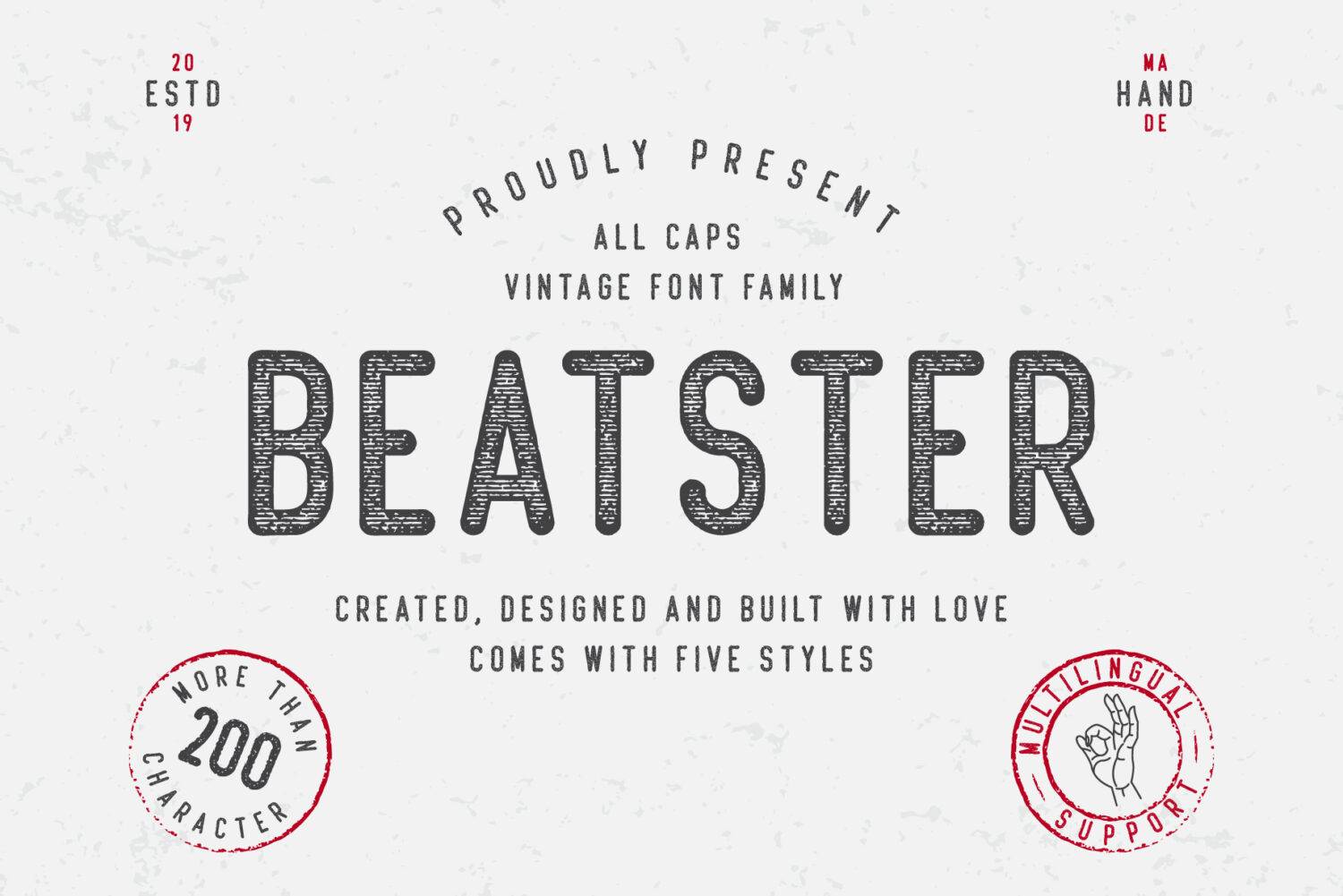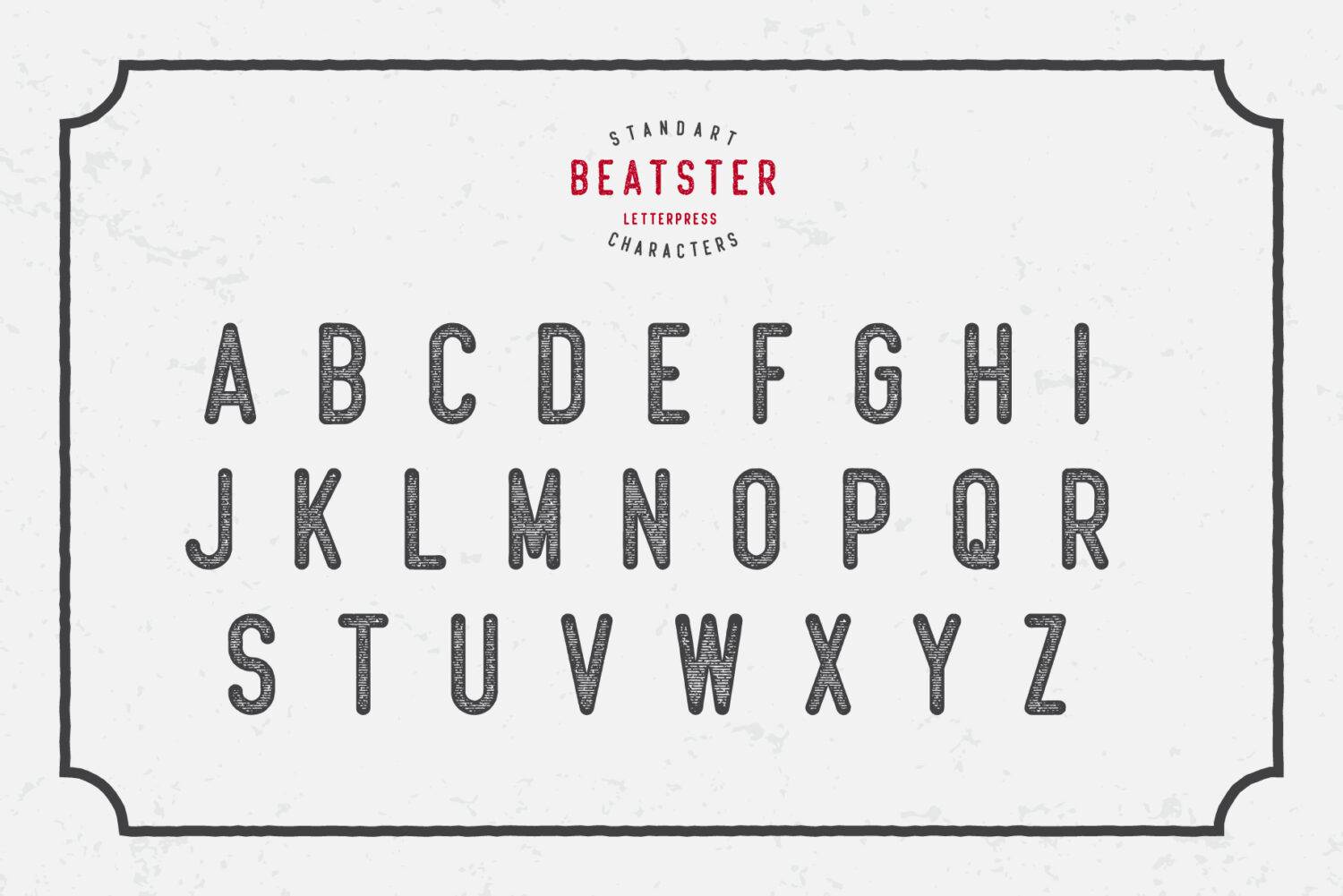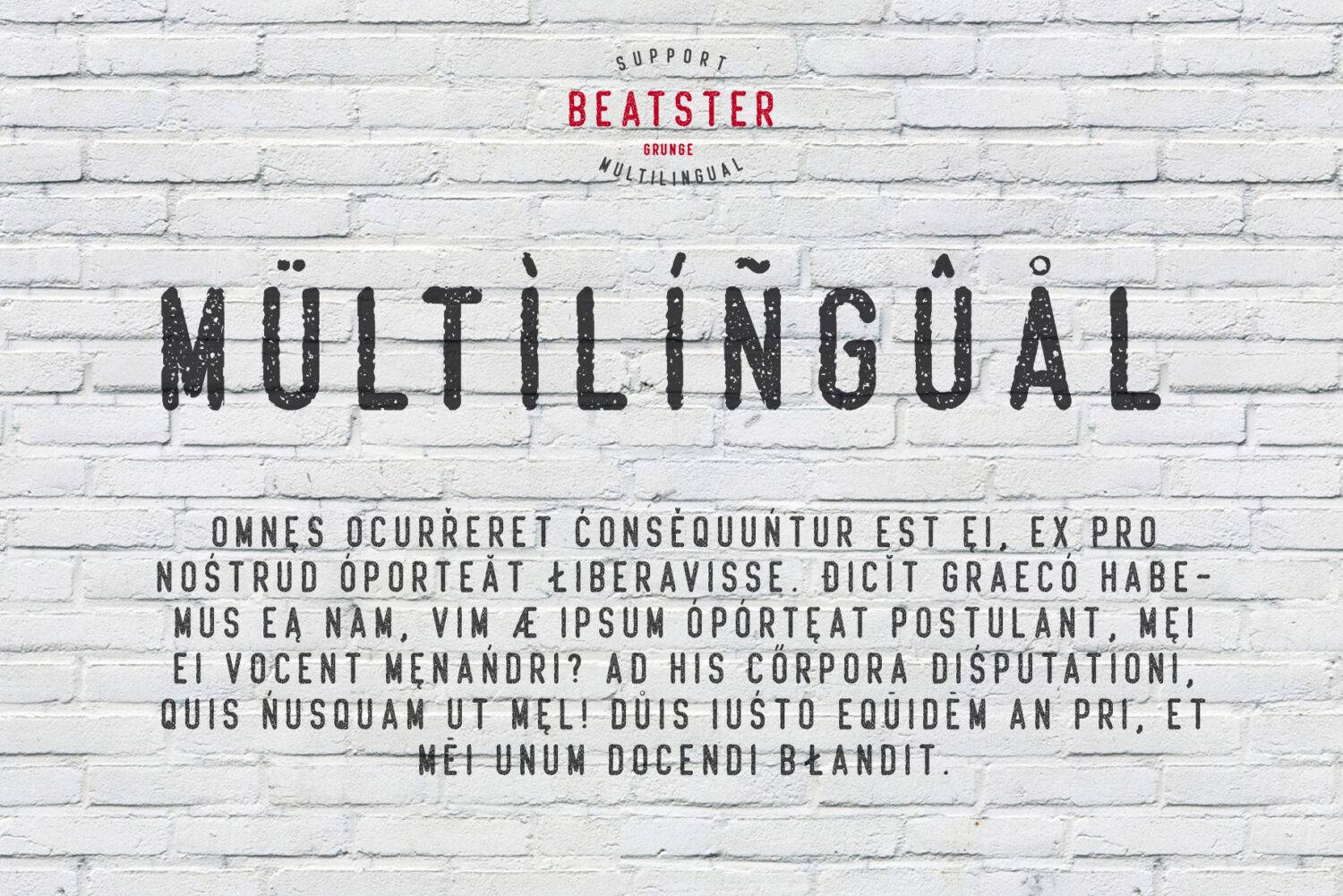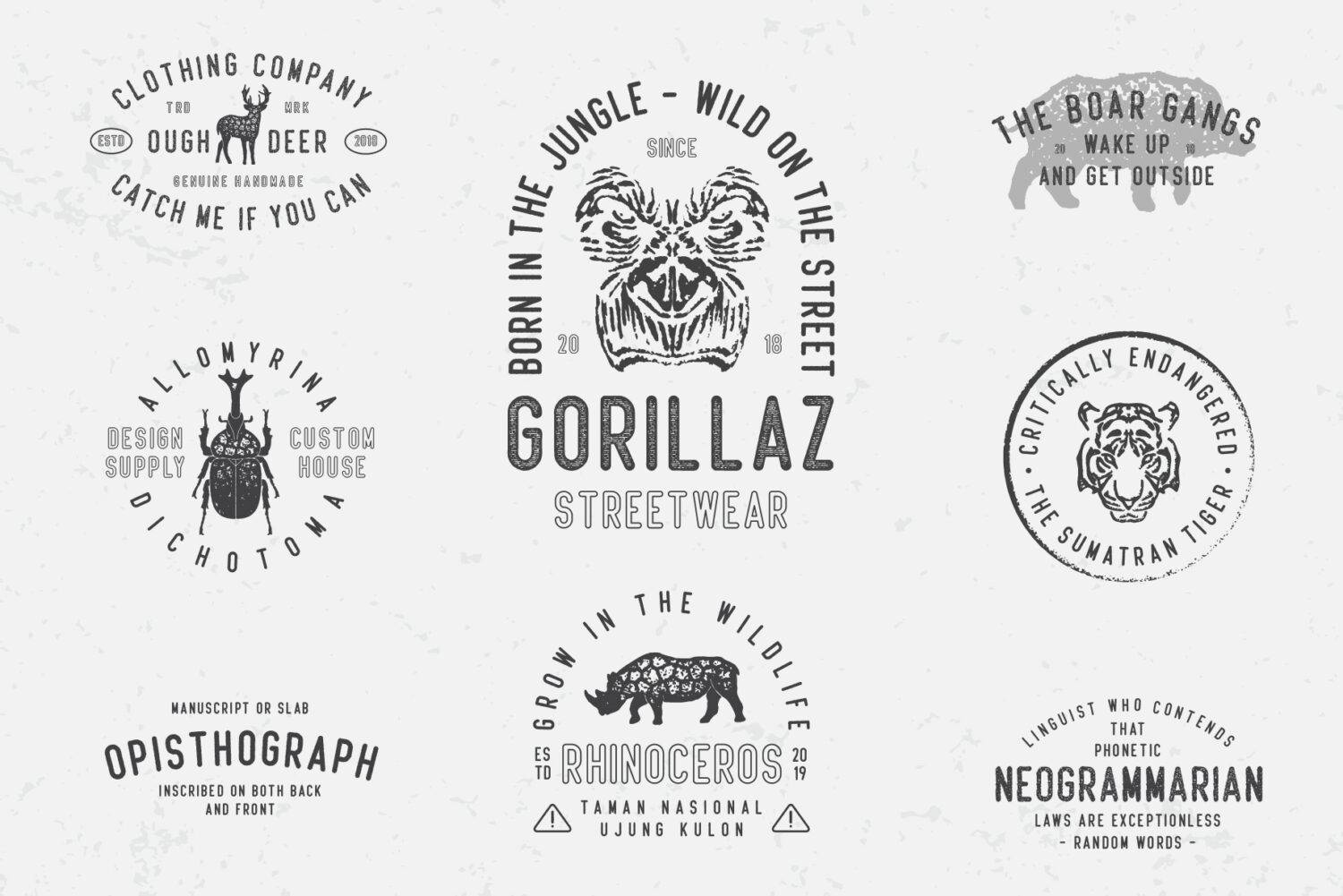
Beatster is a condensed, sans serif font with a clean and modern look, featuring rounded corners that add a friendly and approachable personality. Its tall x-height and uniform stroke weight make it highly legible, ideal for bold headlines, branding, and urban or contemporary designs. This font works well in digital and print projects where a stylish yet straightforward typeface is needed to convey energy and clarity.
Beatster Font
About Beatster Font